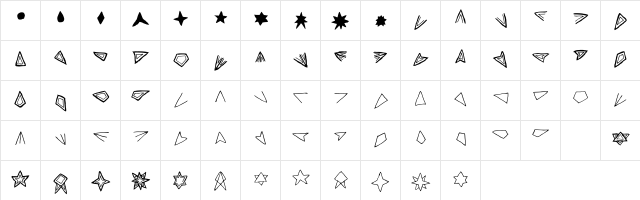
Aster Cipher Regular
Design Context for Aster Cipher Typeface
Aster Cipher is a composed and adaptable typeface that performs quietly and consistently across a wide range of design contexts.